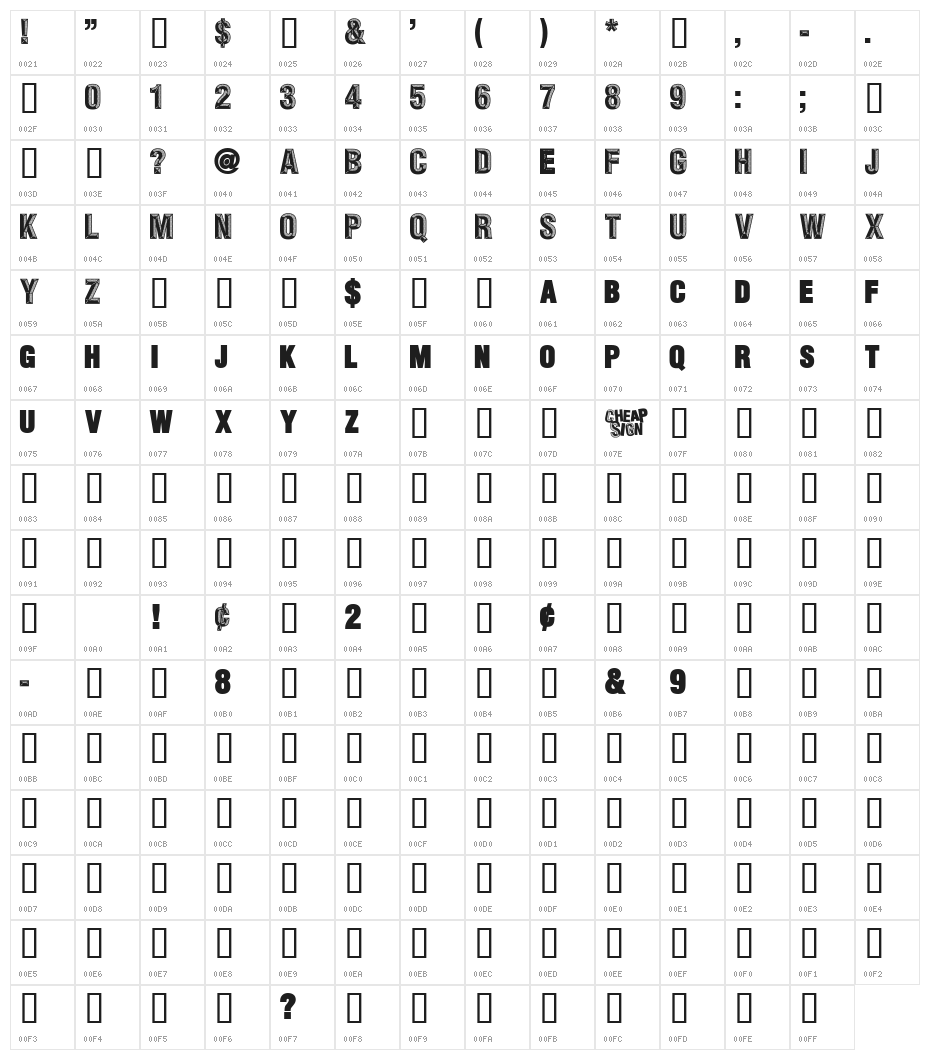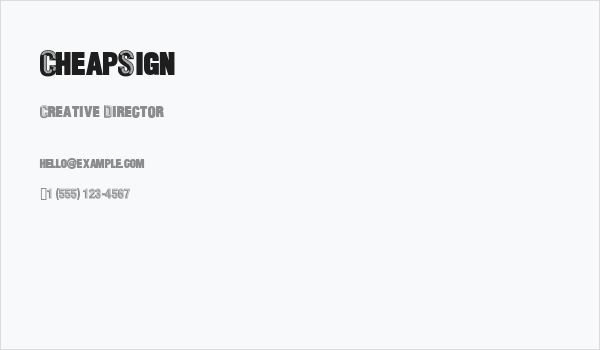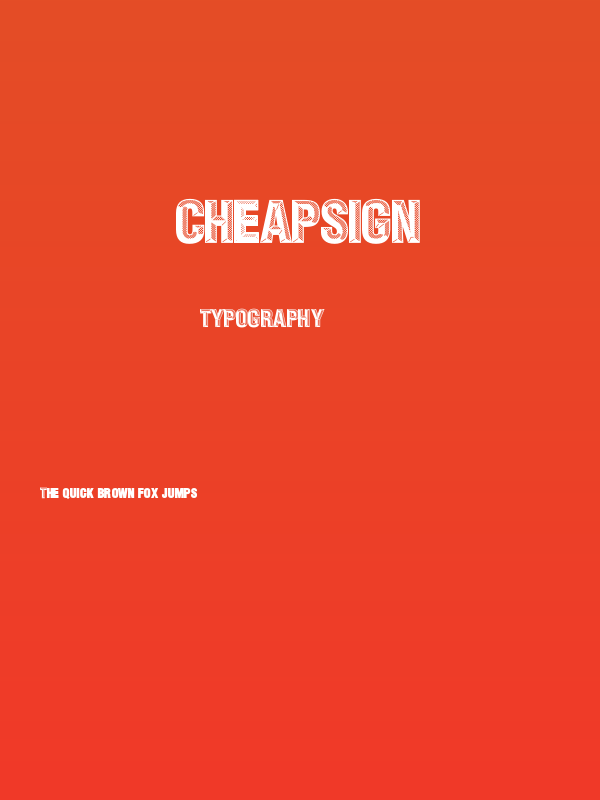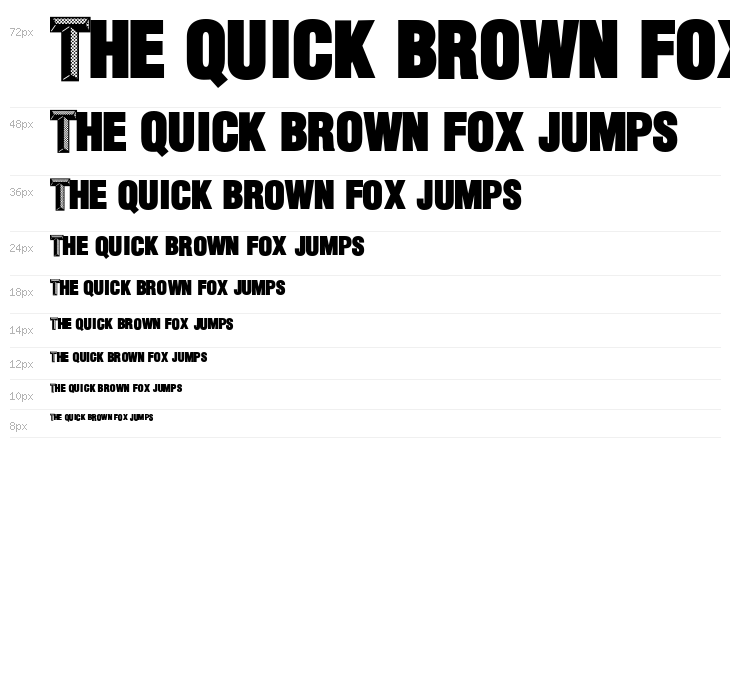
CheapSign Font
CheapSign Description
This font features a bold, decorative style with a unique pattern inside each character, giving it a textured, eye-catching appearance. The uppercase letters are particularly striking, with a shadow effect that adds depth and dimension. The numbers and special characters maintain this bold, patterned look, ensuring consistency across all glyphs. The font's design is reminiscent of vintage signage, making it ideal for projects that require a retro or nostalgic feel. Its strong presence and distinctive style make it suitable for headlines, posters, and branding that demand attention.
| Use Case | Headlines, Posters, Branding |
| Proposed Projects | Ideal for vintage-themed posters, eye-catching headlines, and unique branding projects. |